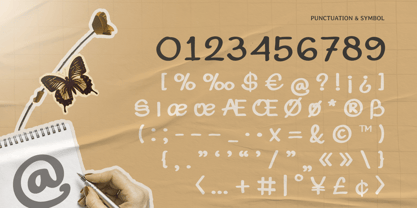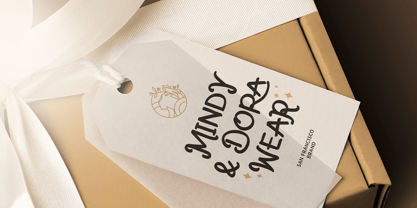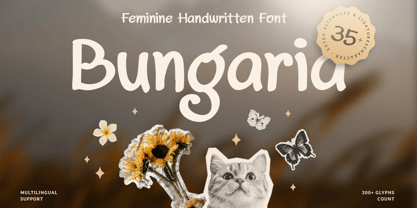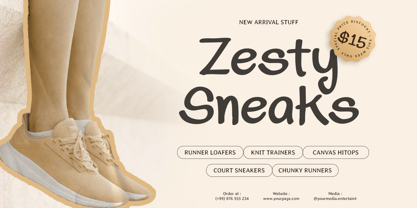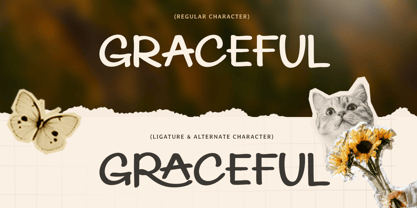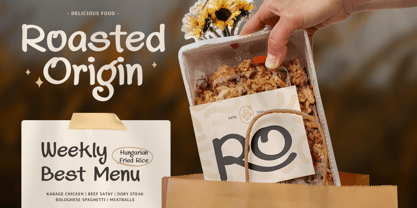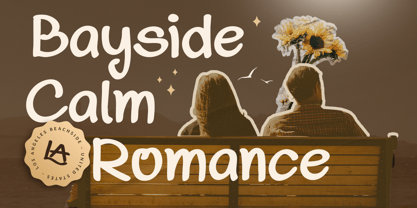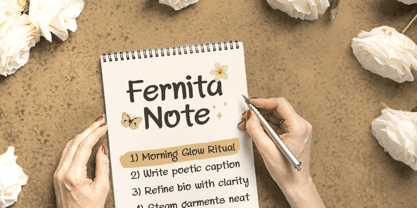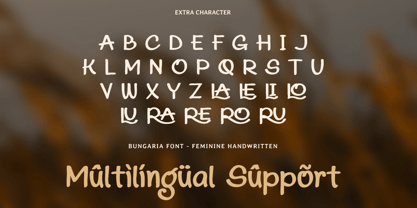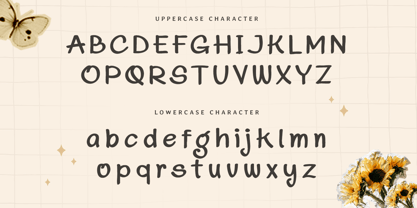
Bungaria is a feminine handwritten font crafted to bring softness, elegance, and natural charm to your typography. With flowing handwritten strokes and a graceful rhythm, this typeface creates a warm visual tone that feels personal, stylish, and beautifully expressive.
Designed for feminine-centered design projects, Bungaria works beautifully across logos, wordmarks, beauty branding, boutique packaging, invitations, quote cards, social media graphics, website headers, labels, and signature-style marketing visuals. Its handwritten flow keeps every layout feeling intimate and refined while maintaining readability across both digital and print applications.
Whether you’re building a beauty brand, designing romantic stationery, creating a personal signature logo, or crafting lifestyle content with a soft elegant mood, Bungaria provides a handwritten foundation that makes your typography feel graceful, authentic, and instantly memorable.
Inspiration Behind Bungaria
Bungaria is inspired by natural feminine handwriting and elegant signature lettering—where soft curves, fluid movement, and personal expression create emotional connection. The design focuses on graceful rhythm and delicate handwritten balance to support modern feminine branding with a warm, refined, and stylish presence.
Bungaria Font Features:
Feminine handwritten letterforms with soft elegant character
Perfect for logos, signatures, branding, and romantic typography
Natural flowing strokes for a personal handwritten feel
Uppercase, lowercase, numerals, and punctuation included
OpenType features for polished professional typesetting
Perfect For
Feminine logos, signature wordmarks, and boutique brand identity systems
Beauty, skincare, fragrance, and lifestyle branding
Invitations, stationery, quote cards, and romantic design projects
Social media graphics, website headers, and personal content branding
Packaging, labels, and elegant promotional materials
Multilingual Support
Add soft signature beauty to your branding with Bungaria—a feminine handwritten font made for elegant, personal visual storytelling. ✨